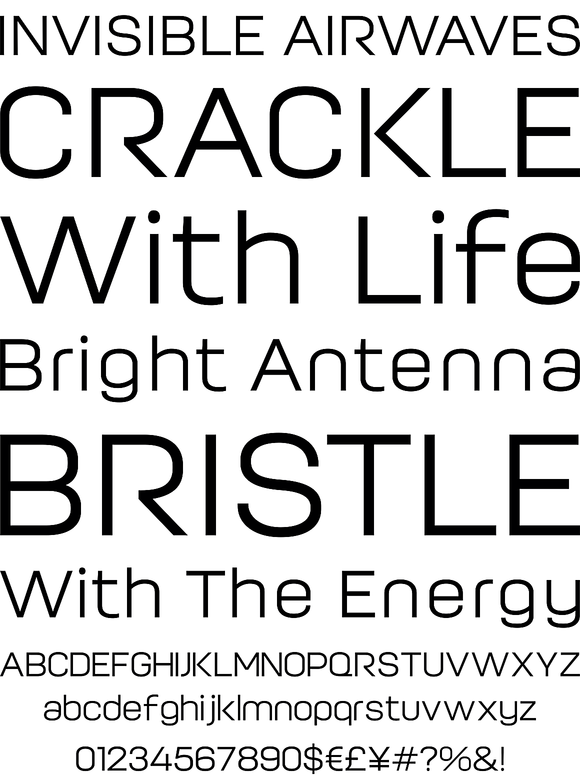
Moderna
Foundry: Los Andes Type
Moderna is a sans serif family inspired in simplicity of Modernism. Its contruction neutral and clean has been especially designed for short texts, headlines, logos and branding. With sixteen variants includes unicase version, some alternate characters, arrows and labels.